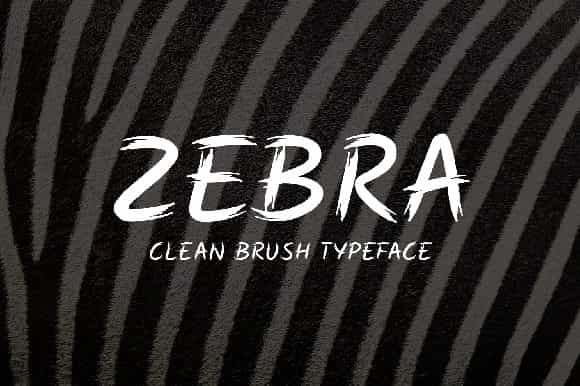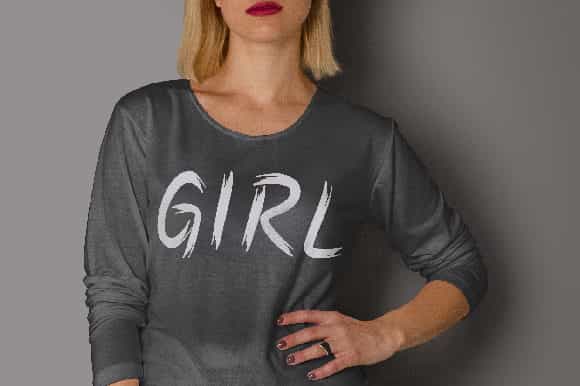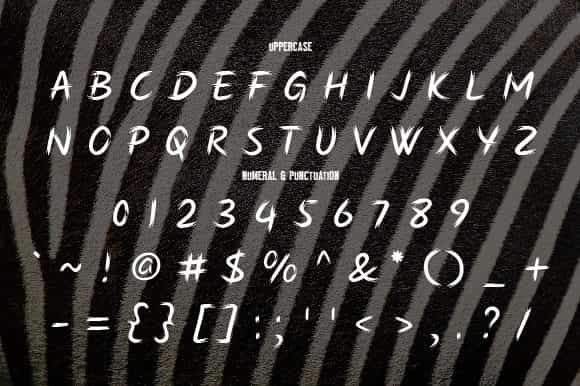
Zebra is an elegant brush typeface that is designed to provide your work with a fresh and a unique feel. It is suitable as a branding font, for handwritten quotations packaging, products blog design, modern design of advertising, invitation Book Cover, Tittle invitation, special events birthdays, custom mugs pillows, t-shirts, etc.